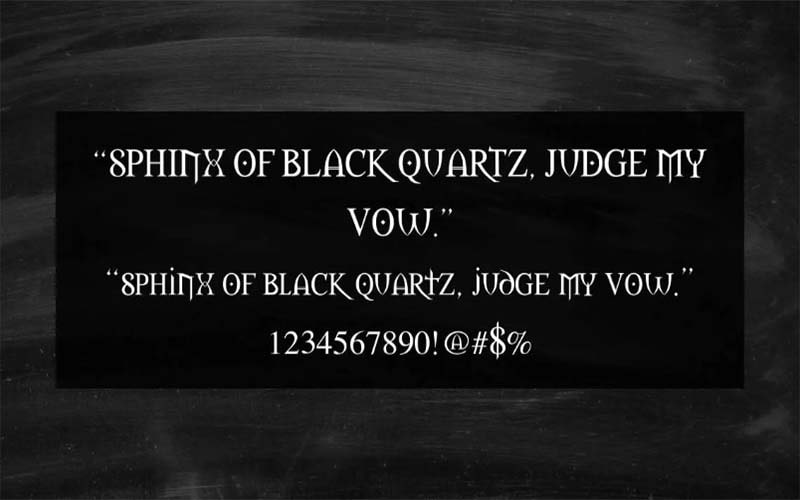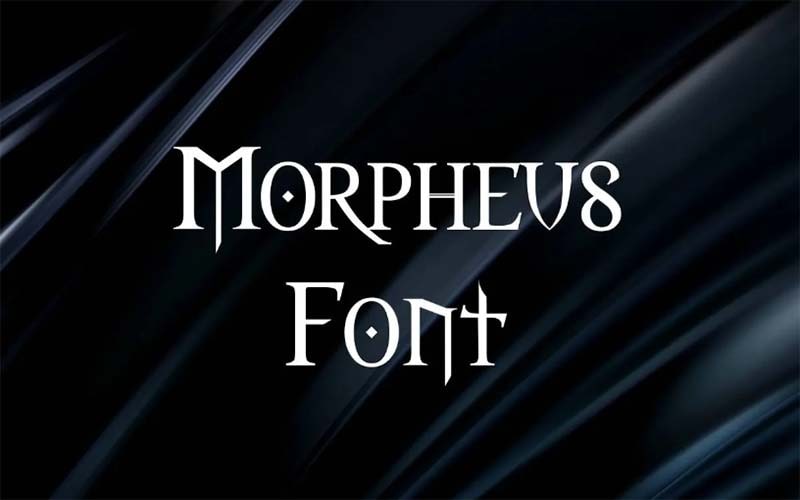
Morpheus Font is a modern and gothic typeface that has a neat and clean texture which gives every text a great tone. This amazing font was designed and published by Kiwi Media Font Foundry.
This display typeface consists of only one unique weight with a True Type file format. This single style contains 251 characters and 243 unique glyphs. And the best part is, it will work professionally without any mistakes.
Morpheus Font
The space between the letters is a bit thinner than the standard size. On the other hand, uppercase and lowercase letters are the same size difference. Many designers are using it in their unique projects.
While all the letters are in the form of capital. So, these aspects add a fancy touch to the whole design which really adds value. And help create amazing unique designs instantly.